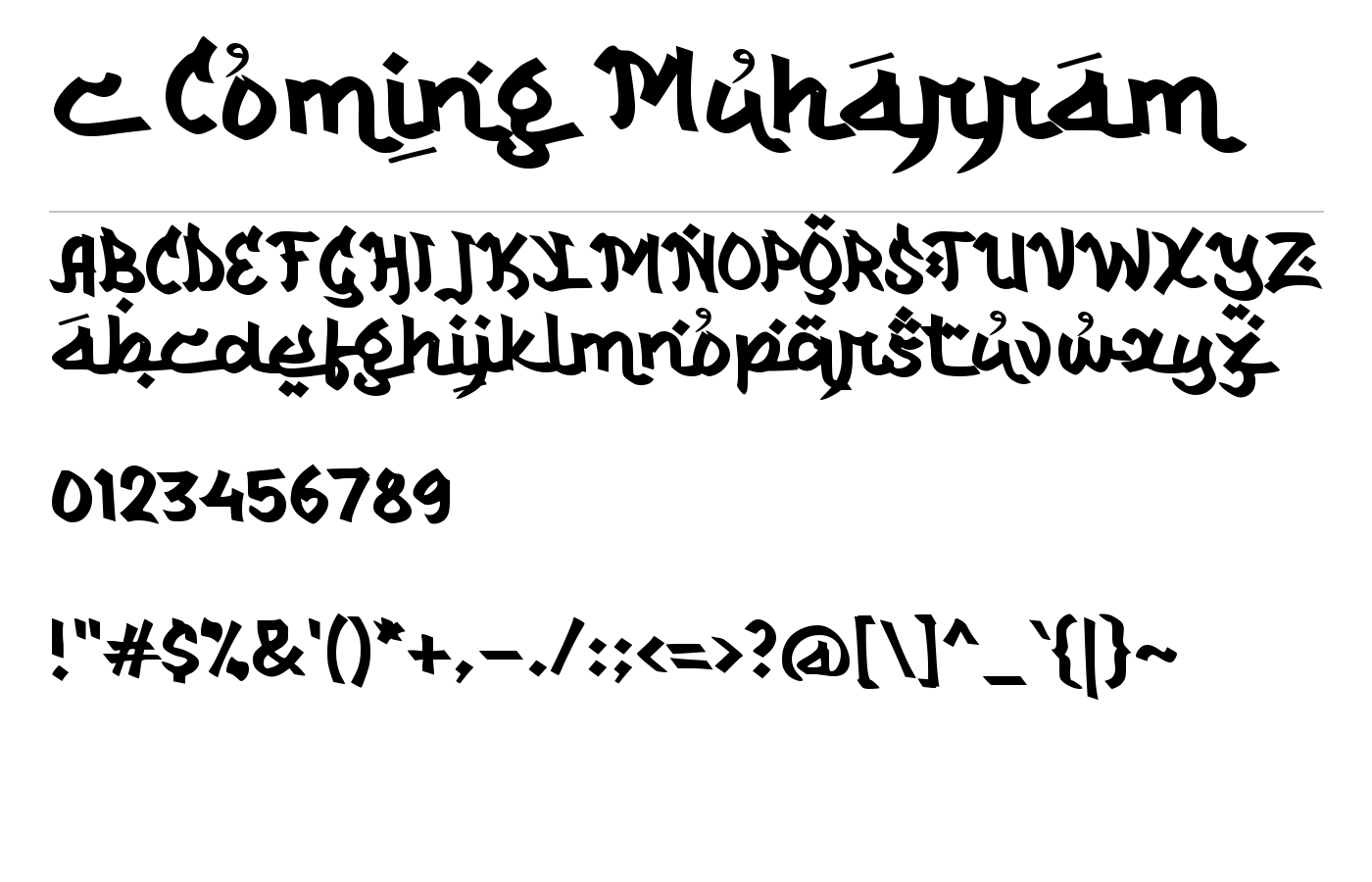
Coming Muharram is a unique display font blending bold, irregular strokes with calligraphic influences, giving it an energetic and artistic feel. Its medium weight and slightly condensed, angular letterforms convey a dynamic and slightly exotic personality, making it ideal for creative headlines, posters, or cultural branding where a distinct and expressive style is needed. This font’s playful yet strong character adds a lively touch to designs that seek to stand out with flair and originality.
c Coming Muharram Font
About c Coming Muharram Font